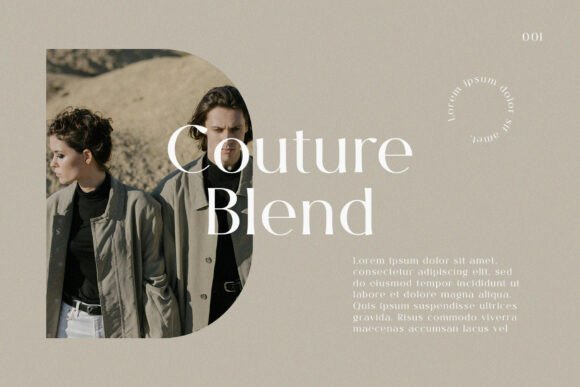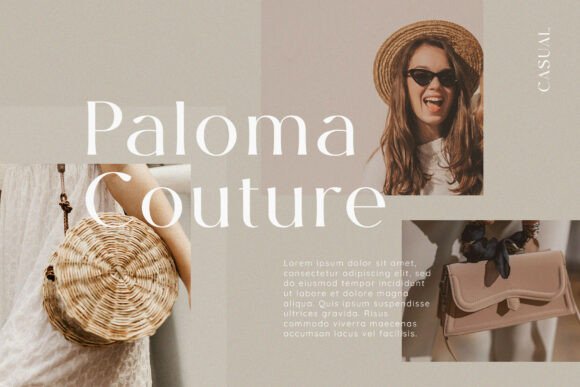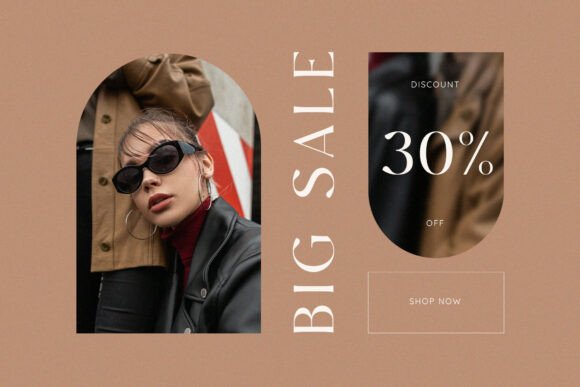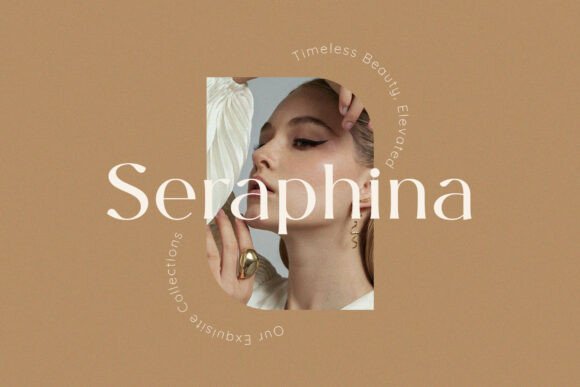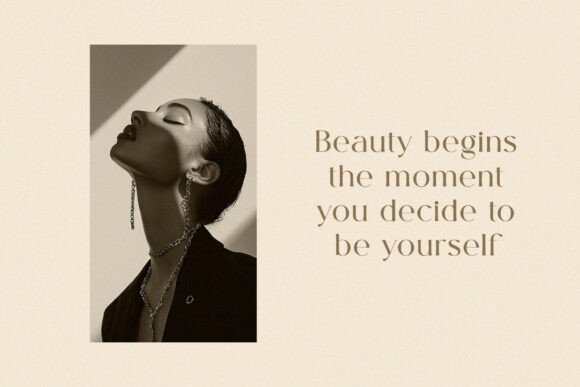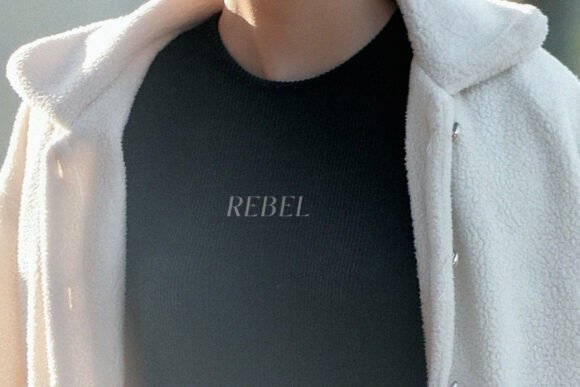
Brandis Font: Elevate Your Designs with Elegance and Sophistication
In the world of typography, a well-crafted font can make all the difference in creating a lasting impression. Introducing Brandis, a modern serif font that embodies the perfect blend of elegance and sophistication. Designed to cater to the needs of designers and crafters, Brandis is an excellent choice for those seeking to add a touch of luxury to their projects.
The Essence of Brandis Font
Brandis is a refined serif font that boasts sleek curves and balanced contrast, making it an ideal choice for a wide range of applications. From branding and editorial layouts to logo design, packaging, wedding stationery, and high-end marketing materials, this versatile typeface is sure to impress. Its sharp serifs, smooth transitions, and distinctive personality set it apart from traditional serif fonts, making it a standout in the world of typography.
Key Features of Brandis Font
- Elegant Serif Design: Brandis features a classic serif design with a modern twist, making it perfect for creating sophisticated and timeless designs.
- Balanced Contrast: The font’s balanced contrast ensures that it remains legible and visually appealing, even at smaller font sizes.
- Sleek Curves: Brandis’s sleek curves add a touch of elegance to any design, making it ideal for luxury brands and high-end marketing materials.
- Sharp Serifs: The font’s sharp serifs provide a sense of sophistication and refinement, perfect for creating professional-looking designs.
- Smooth Transitions: Brandis’s smooth transitions between strokes ensure a seamless reading experience, making it perfect for body text and headlines.
Applications of Brandis Font
Brandis is an incredibly versatile font that can be used in a wide range of applications, including:
- Branding: Create a lasting impression with Brandis’s elegant and sophisticated design, perfect for luxury brands and high-end companies.
- Editorial Layouts: Use Brandis to add a touch of elegance to your editorial layouts, including magazines, newspapers, and books.
- Logo Design: Create a professional and memorable logo with Brandis’s unique and distinctive design.
- Packaging: Add a touch of luxury to your packaging designs with Brandis’s sophisticated and elegant font.
- Wedding Stationery: Create beautiful and elegant wedding stationery with Brandis, perfect for formal and high-end weddings.
- High-End Marketing Materials: Use Brandis to create professional and sophisticated marketing materials, including brochures, flyers, and posters.
Why Choose Brandis Font?
With so many fonts available, why choose Brandis? Here are just a few reasons why Brandis stands out from the crowd:
- Unique Design: Brandis’s unique design ensures that your projects stand out from the crowd, making it perfect for designers and crafters seeking to create something truly special.
- Legibility: The font’s balanced contrast and smooth transitions ensure that it remains legible, even at smaller font sizes.
- Versatility: Brandis is an incredibly versatile font that can be used in a wide range of applications, making it a valuable addition to any designer’s toolkit.
- Professionalism: Brandis’s elegant and sophisticated design ensures that your projects look professional and polished, perfect for high-end clients and luxury brands.
In conclusion, Brandis is an exceptional serif font that offers a unique blend of elegance and sophistication. With its sleek curves, balanced contrast, and sharp serifs, Brandis is perfect for designers and crafters seeking to create timeless and professional designs. Whether used in branding, editorial layouts, logo design, packaging, wedding stationery, or high-end marketing materials, Brandis is sure to impress. So why wait? Discover the power of Brandis and elevate your designs to new heights.